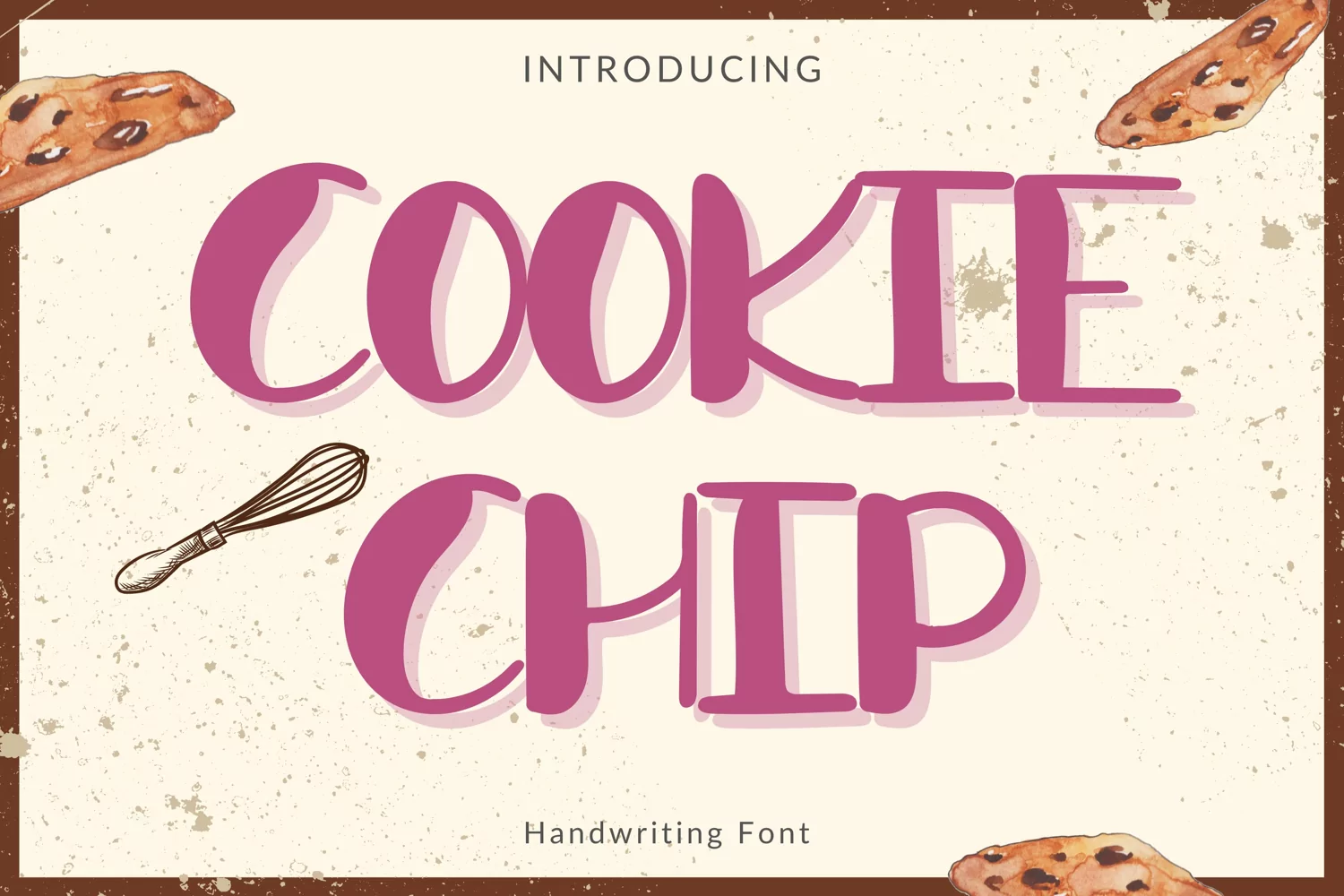
Created By AchiArt
Cookie Chip Style
CookieChip
Cookie Chip Style is a whimsical and clean handwritten font. It can easily be matched to an incredibly large set of projects, so add it to your creative ideas and notice how it makes them stand out!